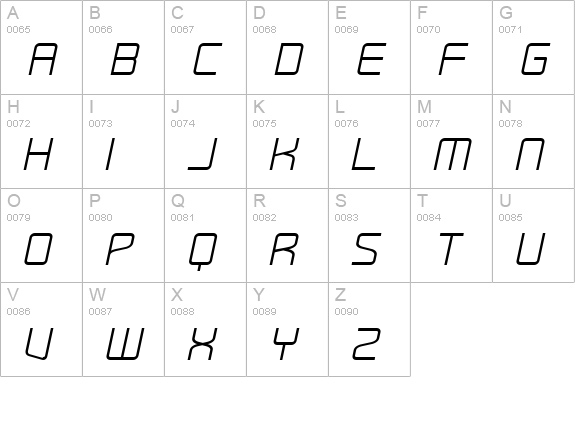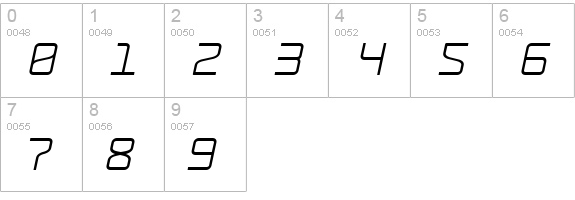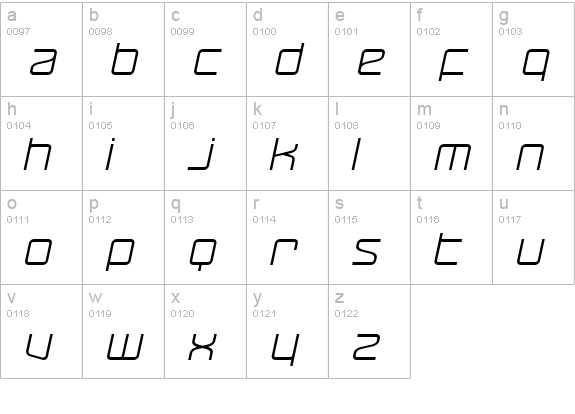
RaveParty Oblique is a distinctive, italic variant in the RaveParty typeface family \xE2\x80\x94 well suited to design and typography projects.
RaveParty Oblique font is a funky and energetic typeface that exudes a playful and vibrant vibe. With its unique slanted design and bold lines, this font is perfect for making a statement in your designs. Whether you are creating posters, flyers, or social media graphics for a rave or party event, RaveParty Oblique will add a touch of fun and excitement to your project. The best part is that RaveParty Oblique font is completely free to download at FontsMarket.com. You can easily access this eye-catching font and use it in your personal or commercial projects without any cost. So why wait? Add a pop of personality to your designs with RaveParty Oblique font today!